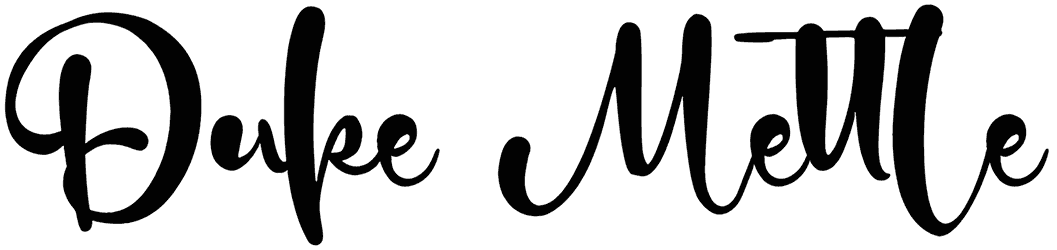
Duke Mettle Font
Duke Mettle is a script font that you will surely use again and again. This handwritten font has intricate letters and a masterful color that adds a magnificent tone to your writing.
The twisting of the lines in the design of this handwritten font has affected its readability to some extent. However, it can still appear as one of the most influential members of your collection in the execution of invitations, book covers, and albums.